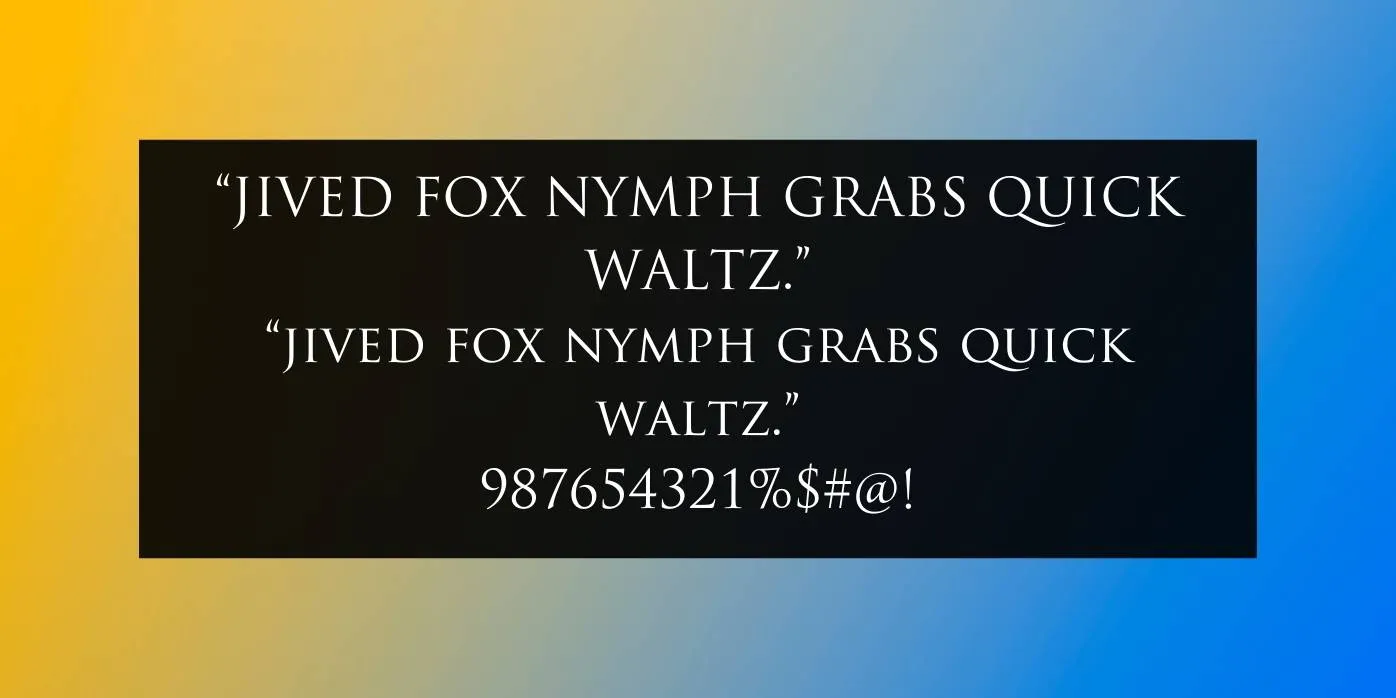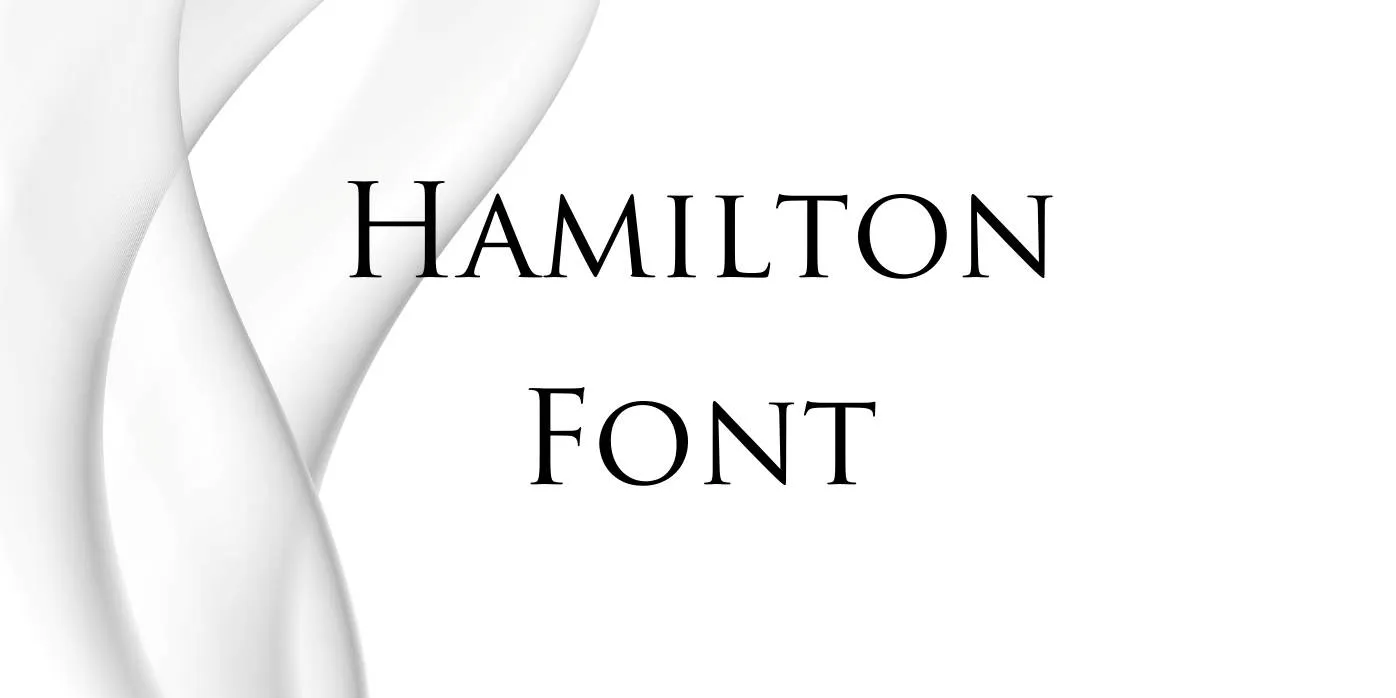
Hamilton Font
Hamilton Font is a serif typeface that was designed in 1796 by Scottish typographer Alexander Wilson. This Font was created as a display typeface, which means it is intended to be used for large text. You can also use the sabon font which is closest to this font family. Wilson wanted the font to be highly readable and have a strong presence, so he made the letters bold and wide.
This font is very well known due to its copy-paste function. This font is also not currently present in Google but you can get it similar from the google store. This Font is a very popular font for print media, especially newspapers. The font has been used by some of the world’s most famous authors, including J.K.
Rowling, Stephen King, and Dan Brown. This Font is also a popular choice for logos and other branding purposes.